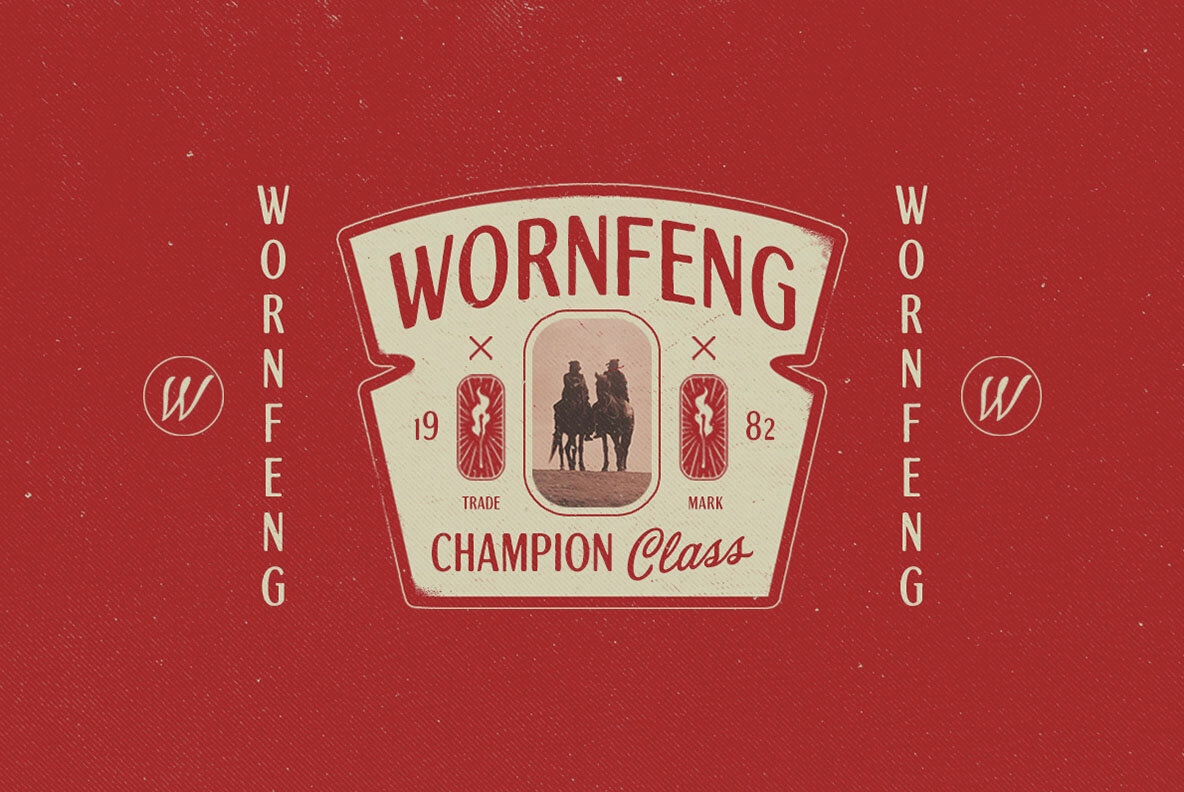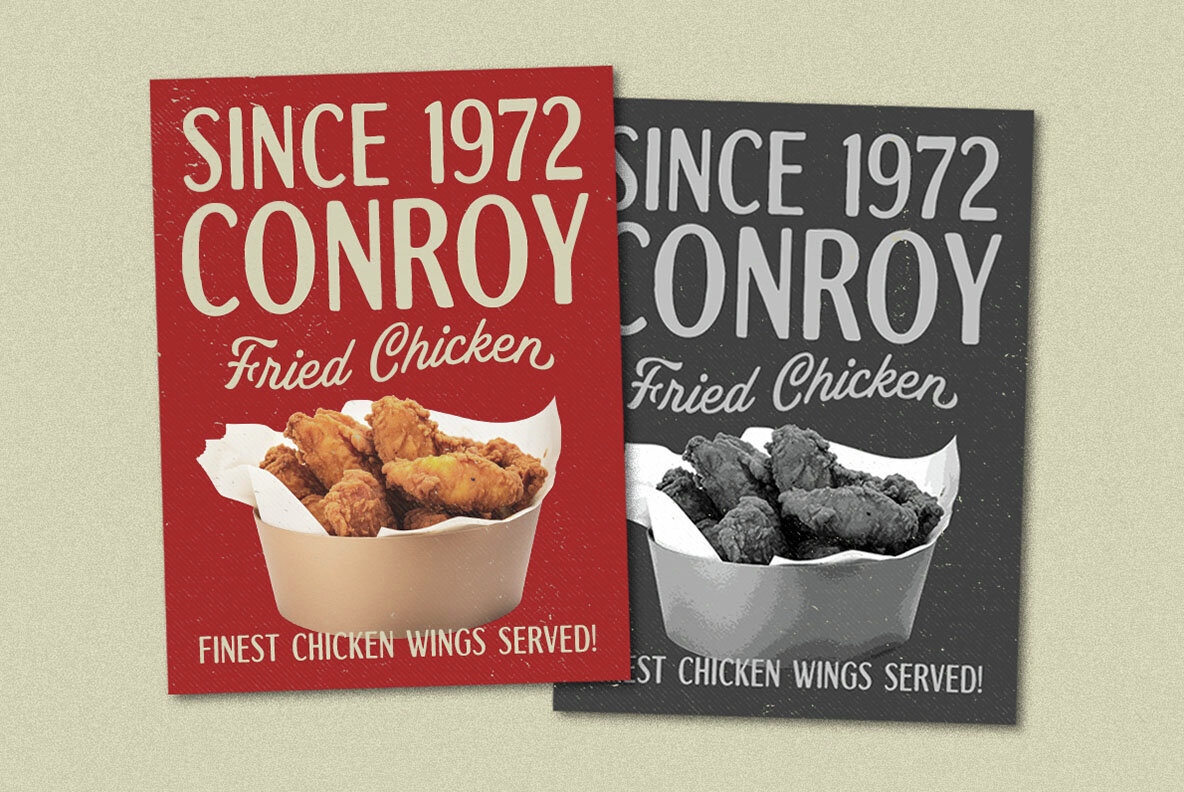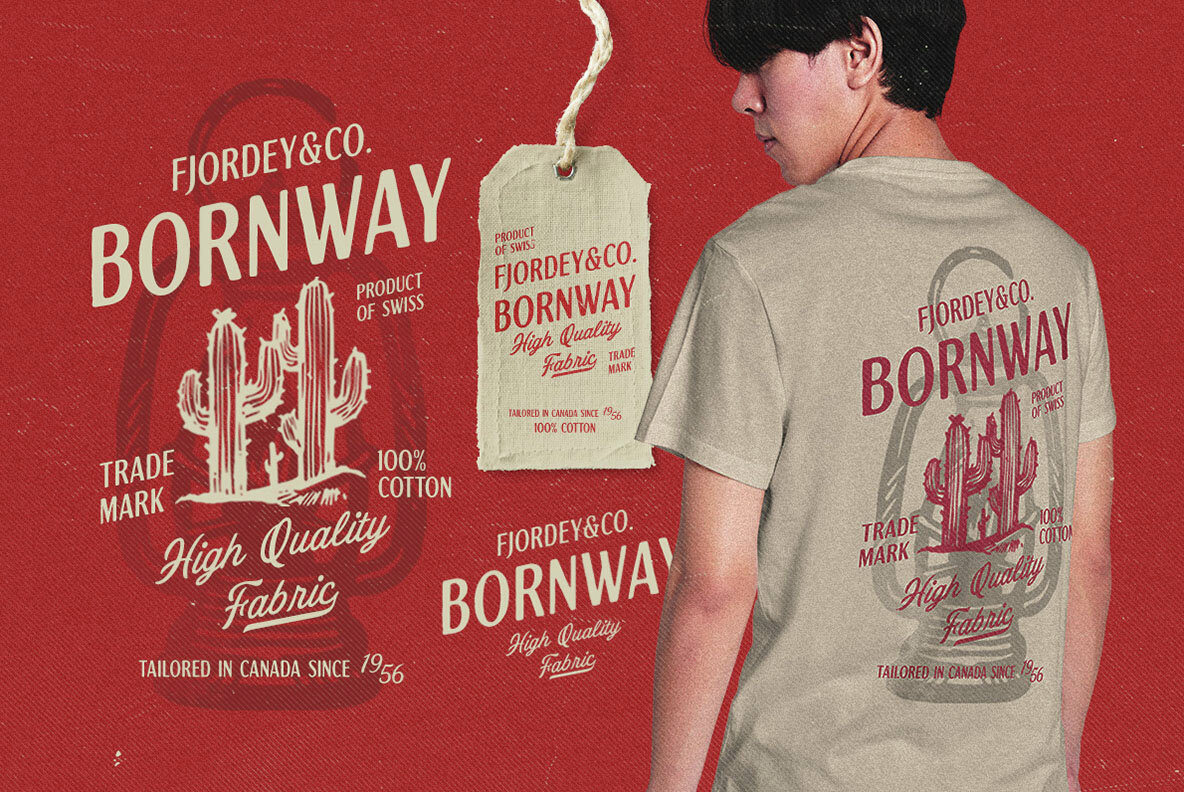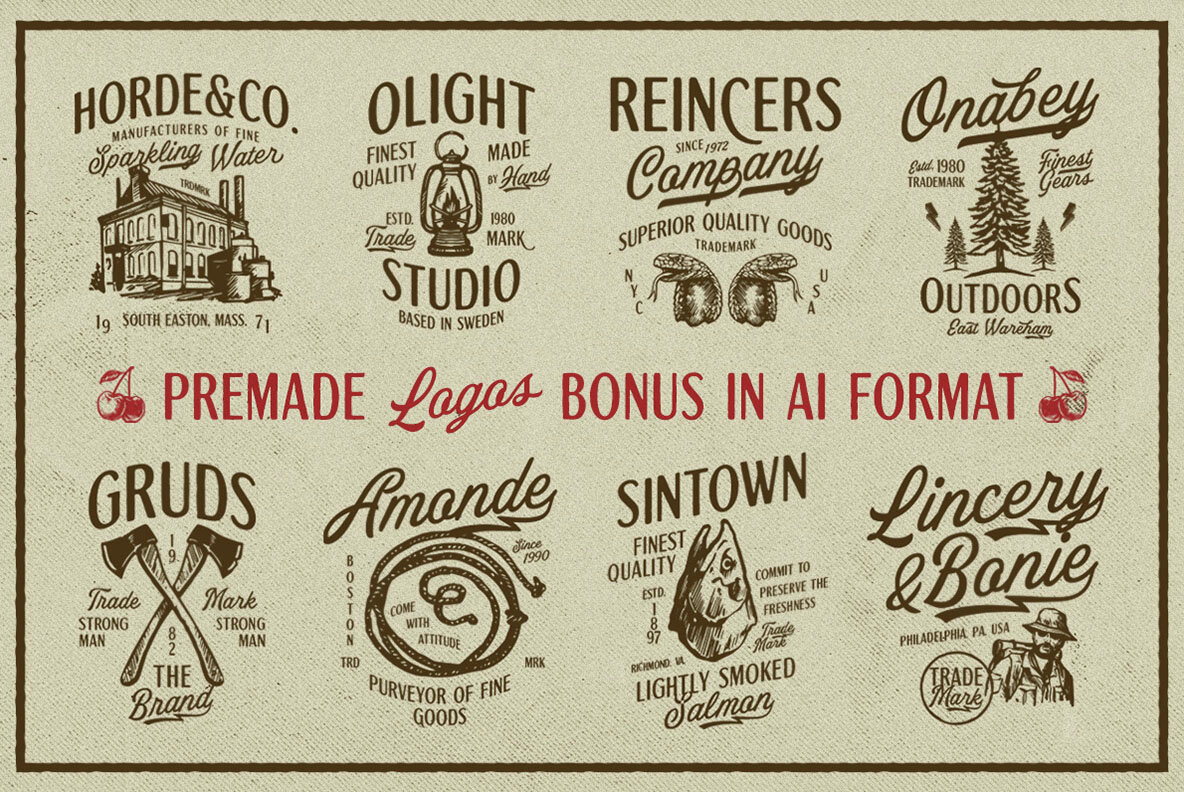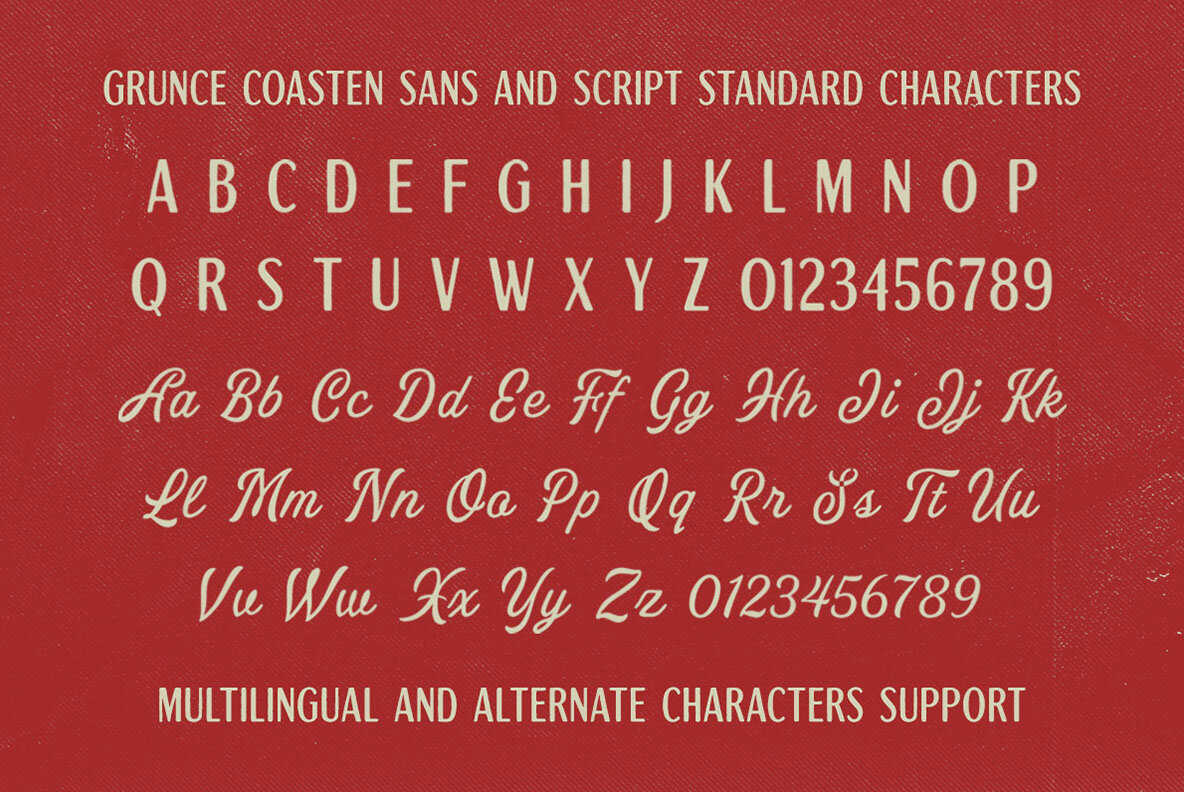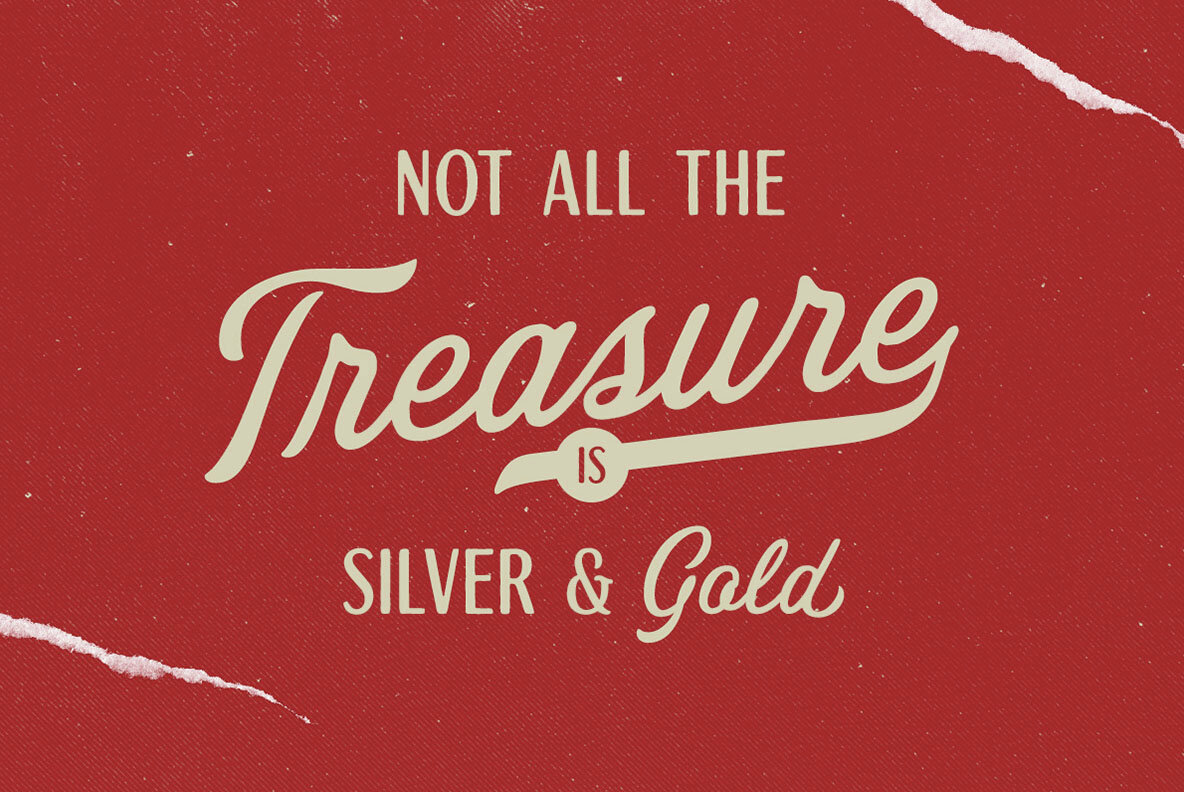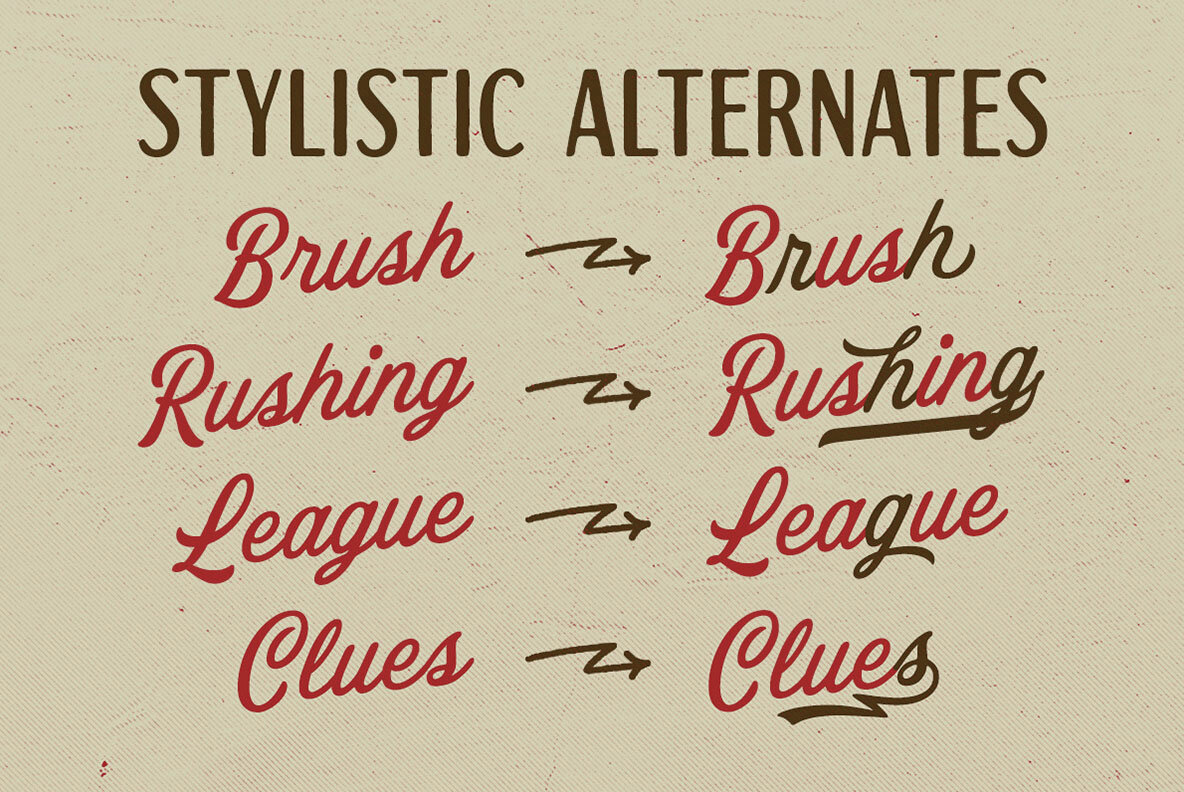
Grunce Coasten Font
Discover the charm of a bygone era with this vintage font duo, offering the elegance of a script paired seamlessly with a sans serif. Infuse timeless style into your creative projects, whether you're crafting a logo, designing headlines, or developing eye-catching signage. Ideal for formal applications, this font duo adds a classic touch to invitations, labels, greeting cards, and print materials. Additionally, the package includes a bonus illustration to enhance your designs further.
The font duo features both uppercase and lowercase characters, numbers, and punctuation, along with multilingual support and PUA encoding for easy access to special characters. To fully appreciate and utilize the font’s diverse Glyph variations, it is recommended to use software that supports OpenType features, such as Adobe applications or Corel Draw. Perfect for fashion, stationery, packaging, and more, this vintage duo serves as a versatile and stylish choice for any advertising or creative needs.